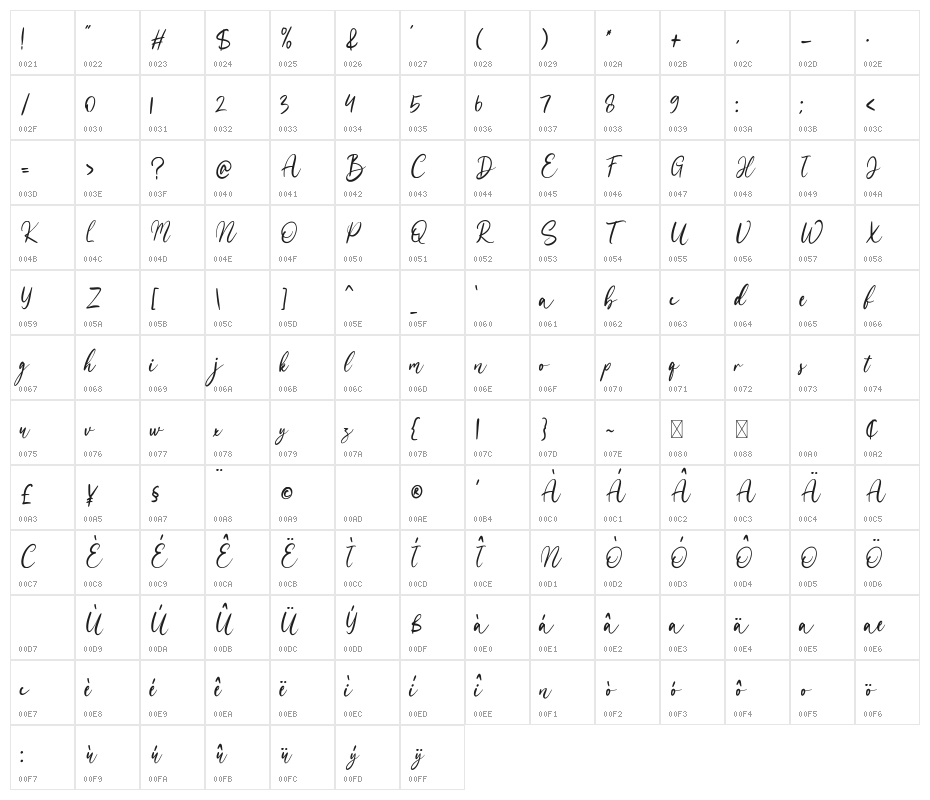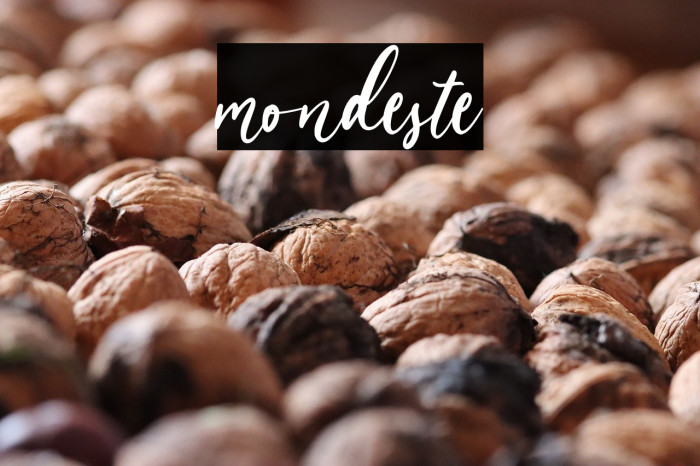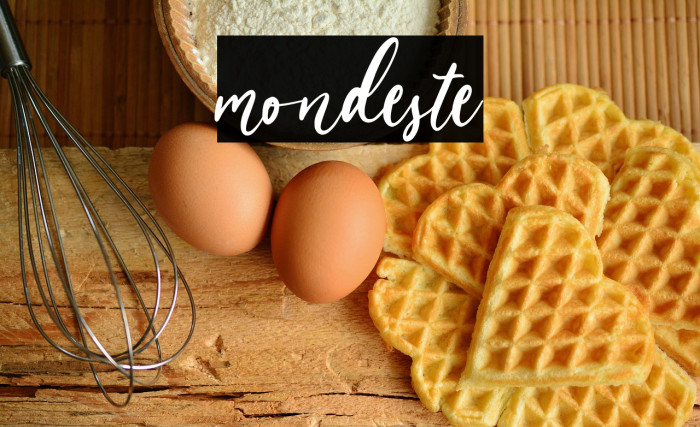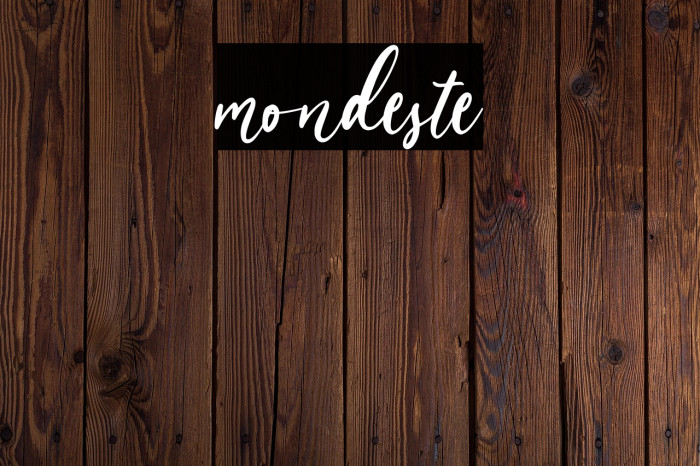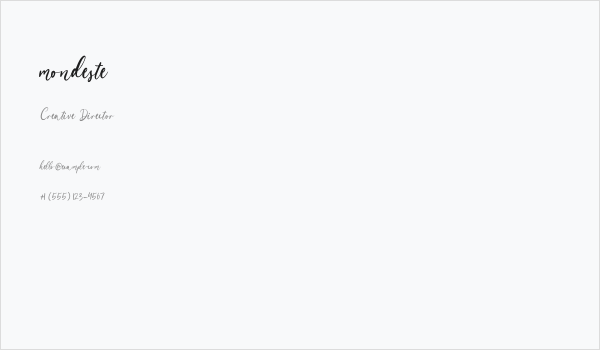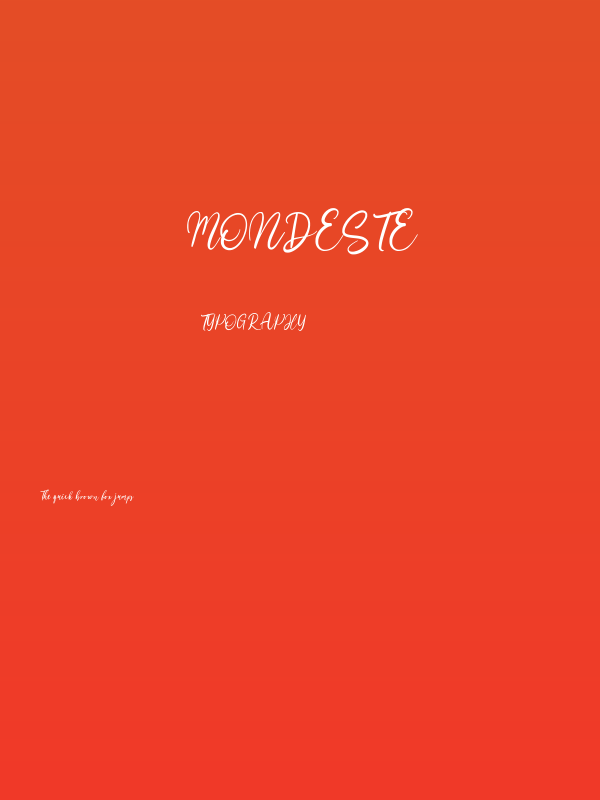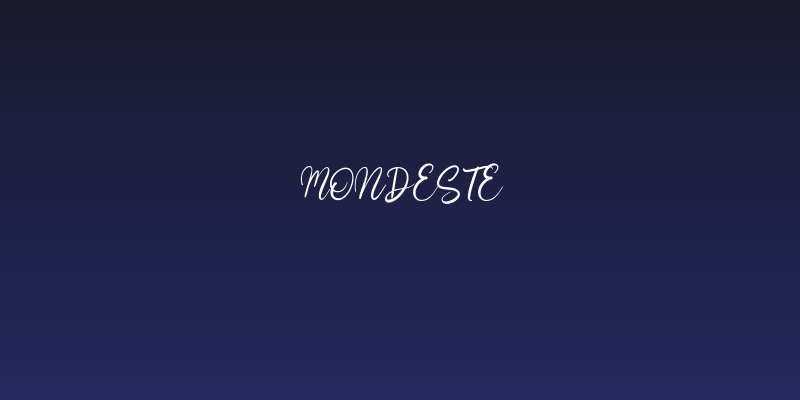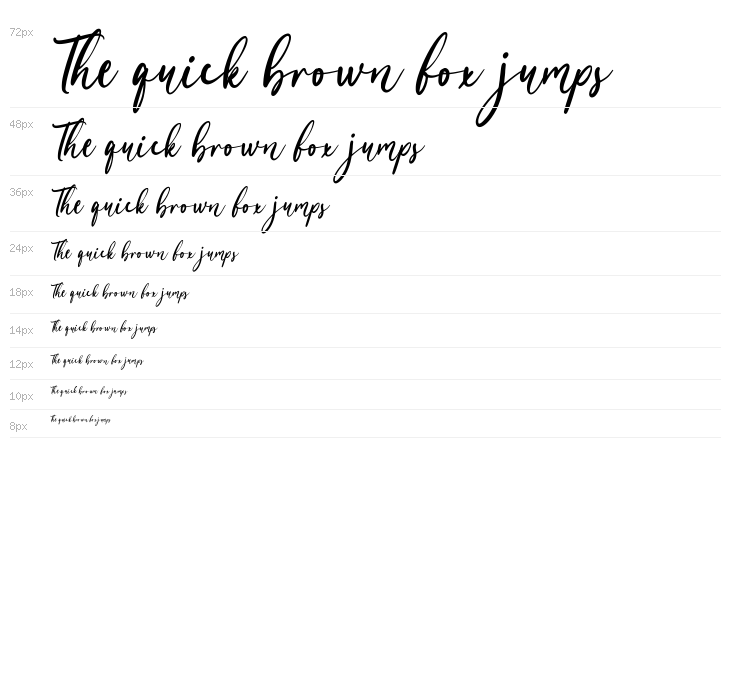
mondeste Font
mondeste Description
This elegant script font features fluid, cursive strokes that convey a sense of sophistication and grace. The uppercase letters are bold and sweeping, with a slight slant that adds to the dynamic flow of the text. The lowercase letters maintain a consistent style, with smooth connections between characters that enhance readability. The numerals are distinct and stylish, complementing the overall aesthetic. Special characters are thoughtfully designed to match the font's elegant theme, making it versatile for various applications. The font's design is perfect for projects that require a touch of elegance and class.
| Proposed Projects | Ideal for wedding invitations, luxury branding, greeting cards, and elegant packaging. |